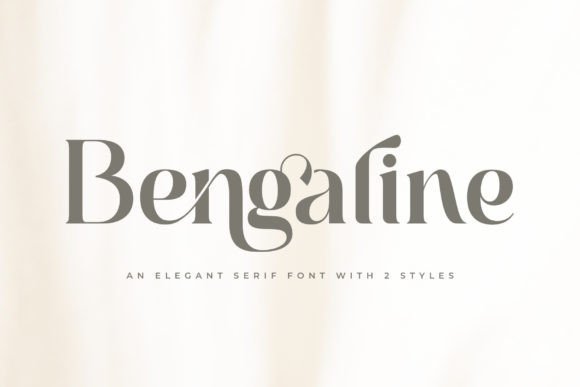
I still remember the countless hours I spent searching for the perfect font for a client’s branding project. The client wanted something classy, elegant, and sophisticated, but I was coming up empty-handed. That was until I stumbled upon Bengaline, a serif font that exudes style and refinement. In this article, I’ll share my experience with Bengaline, its features, and how to make the most of this beautiful font.
First Impressions: What I Love About Bengaline
Bengaline has quickly become one of my go-to fonts, and for good reason. Here are some of the things I love about it:
- ✨ Elegant and refined shapes: Bengaline’s serif design is perfect for creating sophisticated branding and logotypes.
- ✅ Versatility: The font comes in two distinct styles—regular and rounded—making it suitable for a variety of design projects.
- đź’ˇ OpenType features: Bengaline supports OpenType features, allowing for advanced typography and glyphs.
While Bengaline is an excellent font, it’s not without its limitations. Here are a few things to keep in mind:
- 🤔 Limited use in body text: Bengaline is best suited for headlines and titles. Its elegant design may not be suitable for long blocks of body text.
The Story Behind Bengaline
Bengaline was designed with the intention of creating a font that exudes elegance and sophistication. The designer aimed to create a font that would be perfect for branding, logotypes, and high-end design projects. With its refined shapes and OpenType features, Bengaline has become a popular choice among designers.
| Font Name | Bengaline Font |
| Author | Madatype Studio |
| What is Bengaline? | Bengaline is a classy and elegant serif font designed for branding, logotypes, and high-end design projects. |
| What OpenType features does Bengaline support? | Bengaline supports advanced OpenType features, including glyphs and stylistic alternates. |
| Can I use Bengaline for body text? | While Bengaline is best suited for headlines and titles, it can be used for body text in certain contexts. However, its elegant design may not be suitable for long blocks of text. |